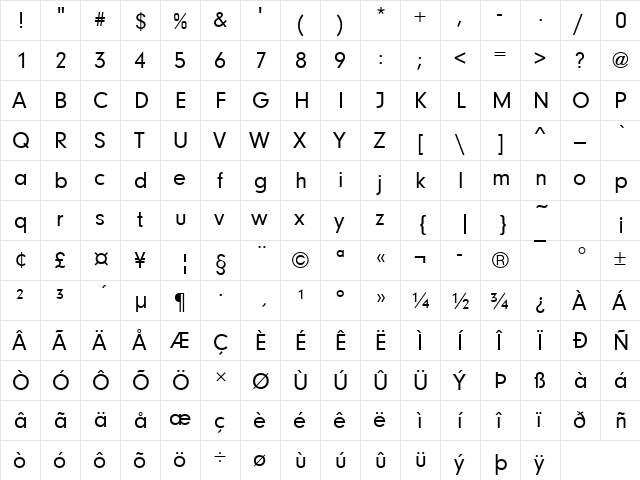
NeuzeitGroT Regular
Design Context for NeuzeitGroT Typeface
NeuzeitGroT offers clean, dependable letterforms without strong stylistic allegiance, making it a practical choice for designers who need flexibility.